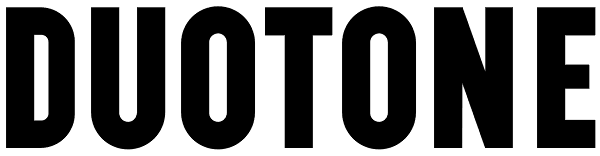
Duotone
Duotone is a layered font system that allows you to title two-tone headlines. This classic two color lettering style requires no font editing. The regular weight acts as a perfect font pairing to match the titles featuring two-shaded headlines. The...
Duotone
Duotone Shade One
Duotone Shade Two